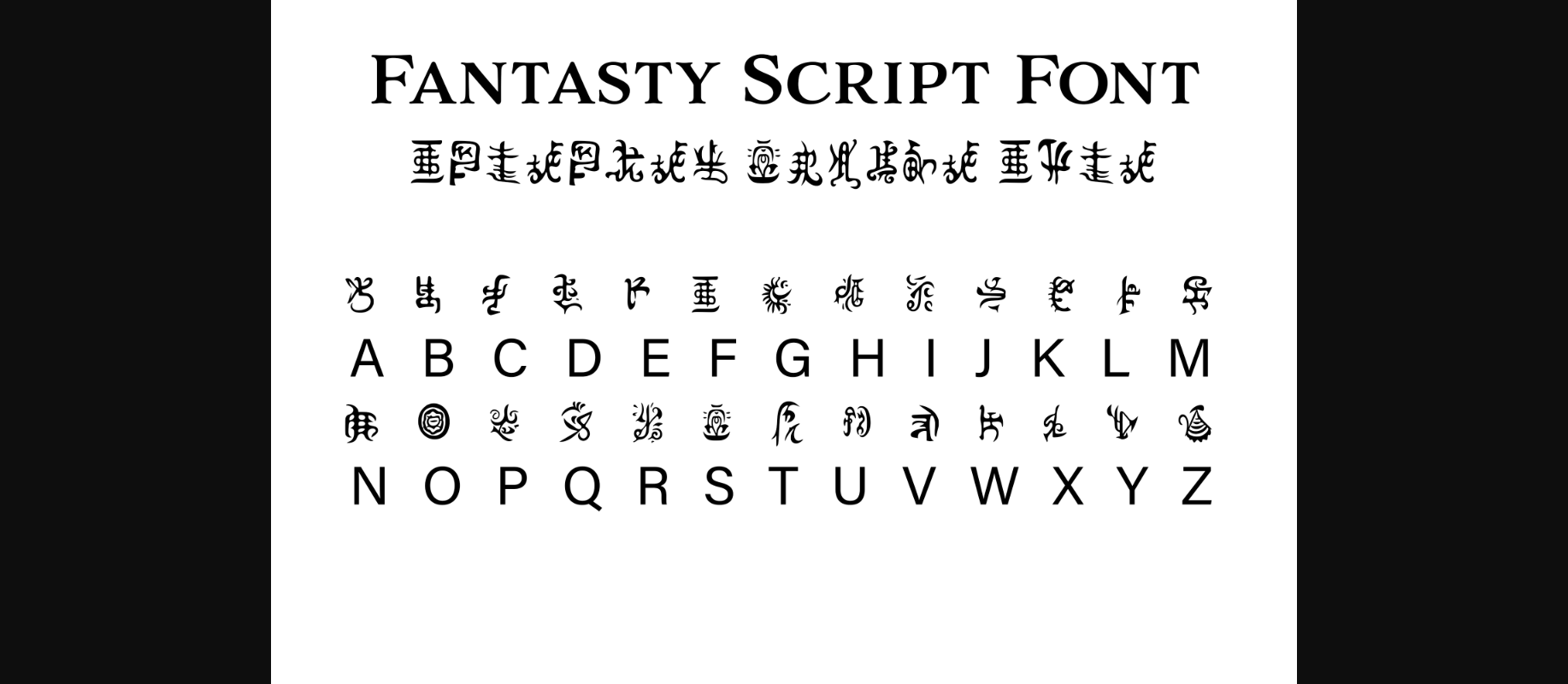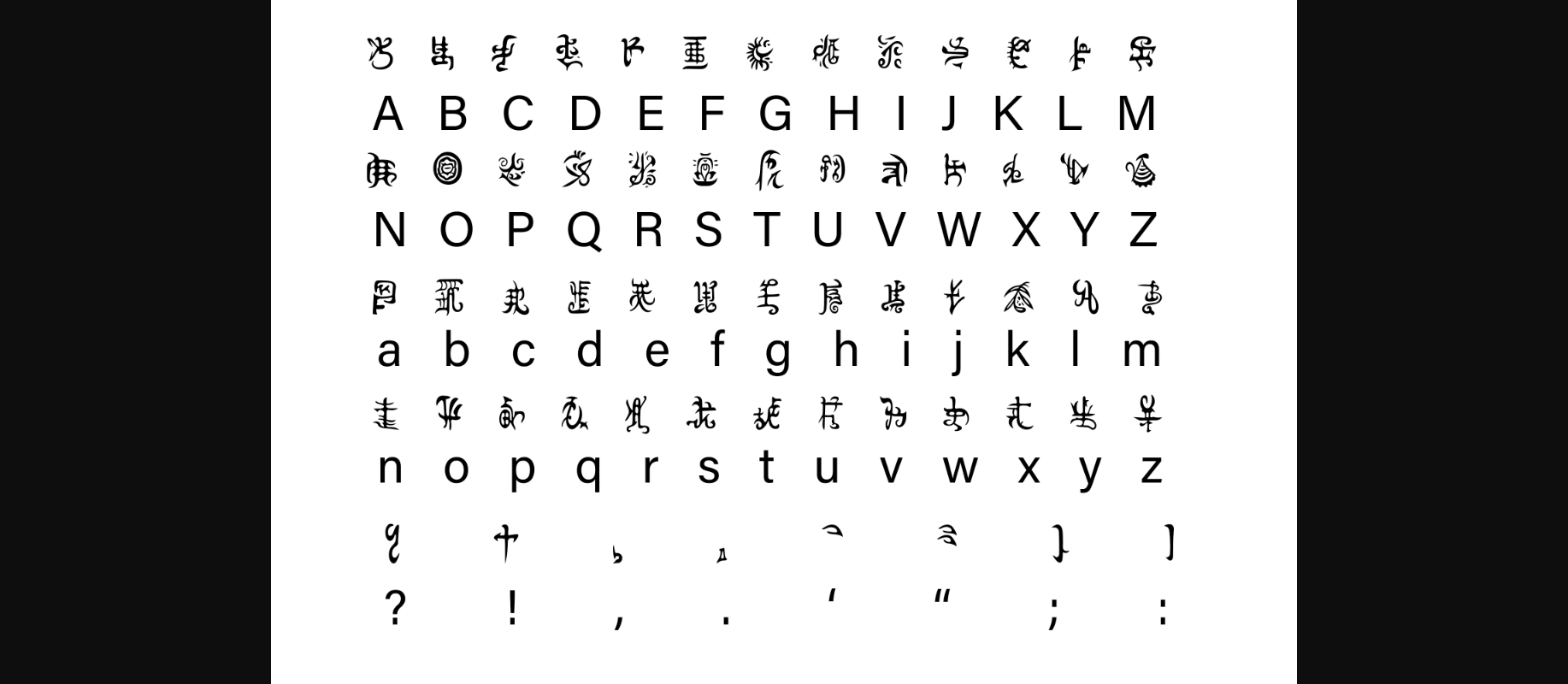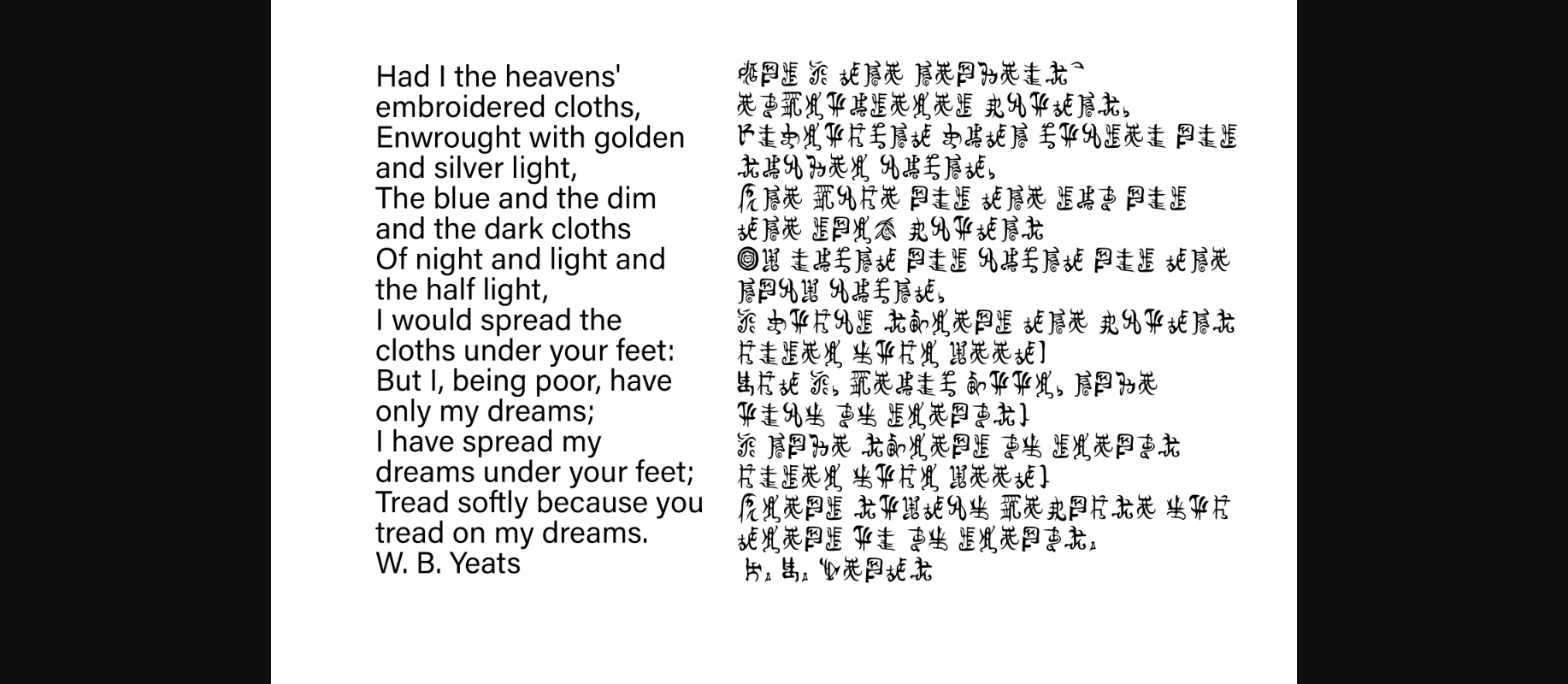
HomeDecorative FontsFantasy Script 11 Font Decorative Fonts Fantasy Script 11 Font FacebookXPinterestWhatsApp 1 of 5 ... Fantasy Script 11 Font Poster 2... Fantasy Script 11 Font Poster 3... Fantasy Script 11 Font Poster 4... Fantasy Script 11 Font Poster 5... About Fantasy Script 11 Font Fantasy is perfect for your next Dungeons and Dragons campaign, fantasy LARP adventure, novel, or whatever else you’re working on! This font includes the standard English alphabet and basic punctuation. DOWNLOAD NOW People also explored Makasih Font Fresh Start Happy Nurse Font Beautiful Font Amore Eiffel Font Fallen Jones Font Marchone Font Monogram Beauty Font Anydore Font 291 0 TagsFantasy Script 11 Font Previous articleFantasy Script 10 FontNext articleFantasy Script 12 Font LEAVE A REPLY Cancel reply Comment: Please enter your comment! Name:* Please enter your name here Email:* You have entered an incorrect email address! Please enter your email address here Website: Save my name, email, and website in this browser for the next time I comment. Personal Use Free Just Love Personal Use Free Read more about this font Anggiana Personal Use Free Read more about this font Little Things Duo Personal Use Free Read more about this font Masker Area Personal Use Free Read more about this font BLOG 5 Fonts That Will Dominate Design Trends in 2026 5 Fonts for 2026 That Will Dominate Design Trends Typography plays a critical role in visual communication, and as we look ahead to 2026, it’s... Best Fonts for YouTube Videos: Make Your Thumbnails Stand Out To increase your work productivity, choose the most readable fonts. The 10 Best Handwriting Fonts to Add Personality to Your Designs